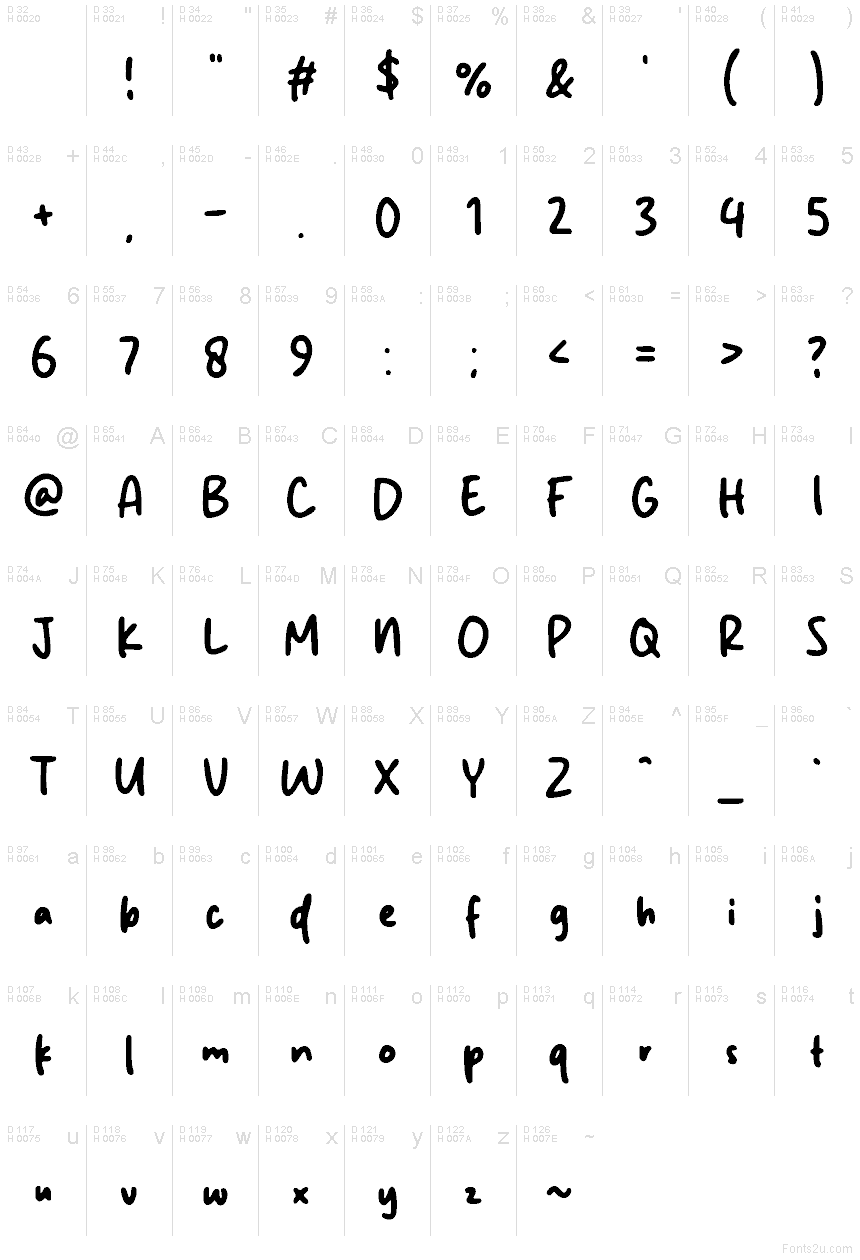
Natural Charcoal
Natural Charcoal font by MJType is a free handwritten font and typeface that finally gives you that casual marker look without sacrificing clarity. Its bold, inky strokes feel like thick charcoal on smooth paper, yet every letter is clean, rounded, and easy to read, even at smaller sizes. The gentle bounce and consistent rhythm keep it playful while still looking intentional and polished.
Using Natural Charcoal, this free font shines on social media graphics, quote posts, product packaging, logos, posters, invitations, and YouTube thumbnails. It brings a friendly, human touch that feels personal rather than messy, great for brands that want warmth and approachability. Pair it with a simple sans serif for body text and let Natural Charcoal handle headlines, tags, and short phrases at larger sizes.